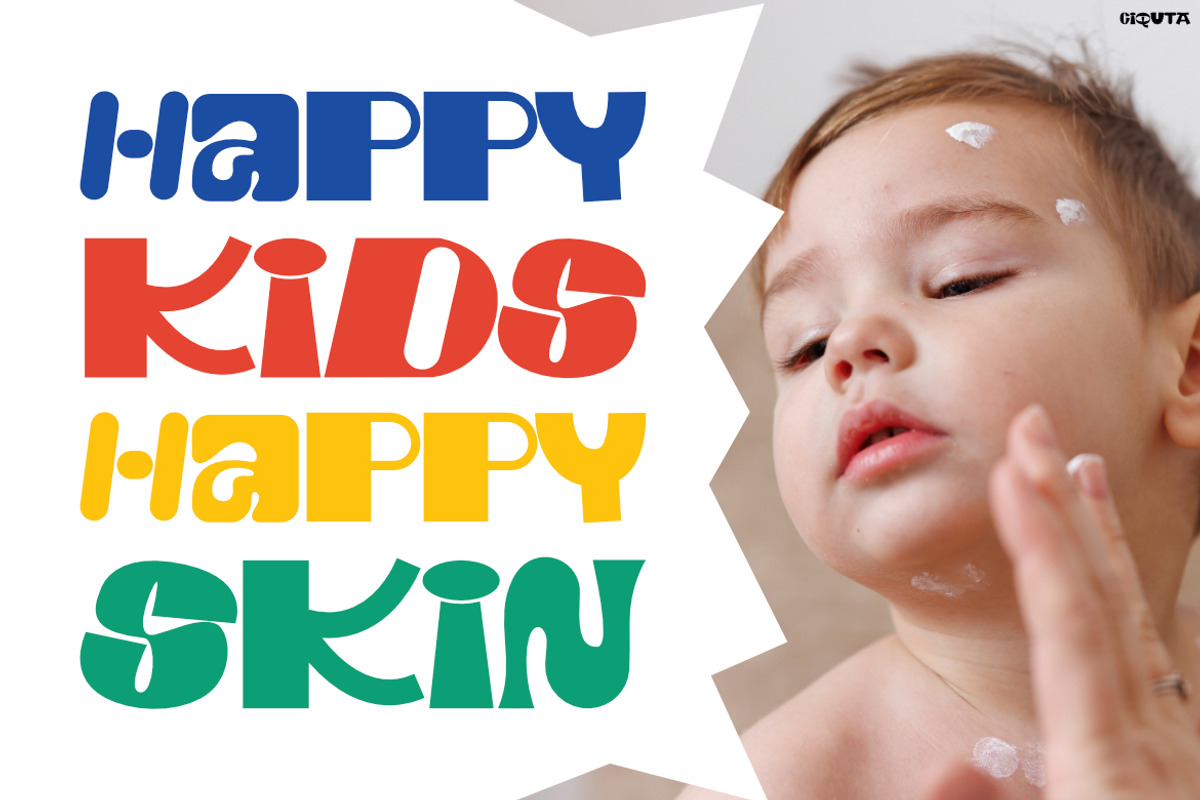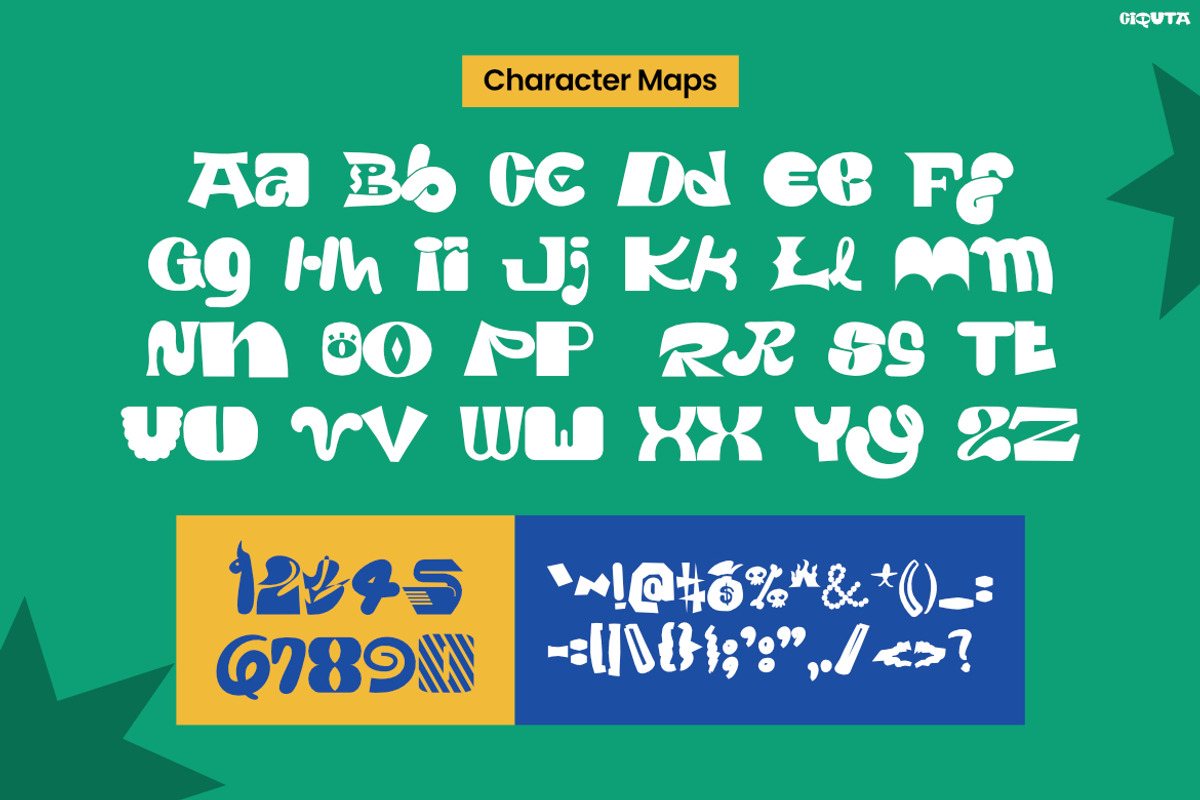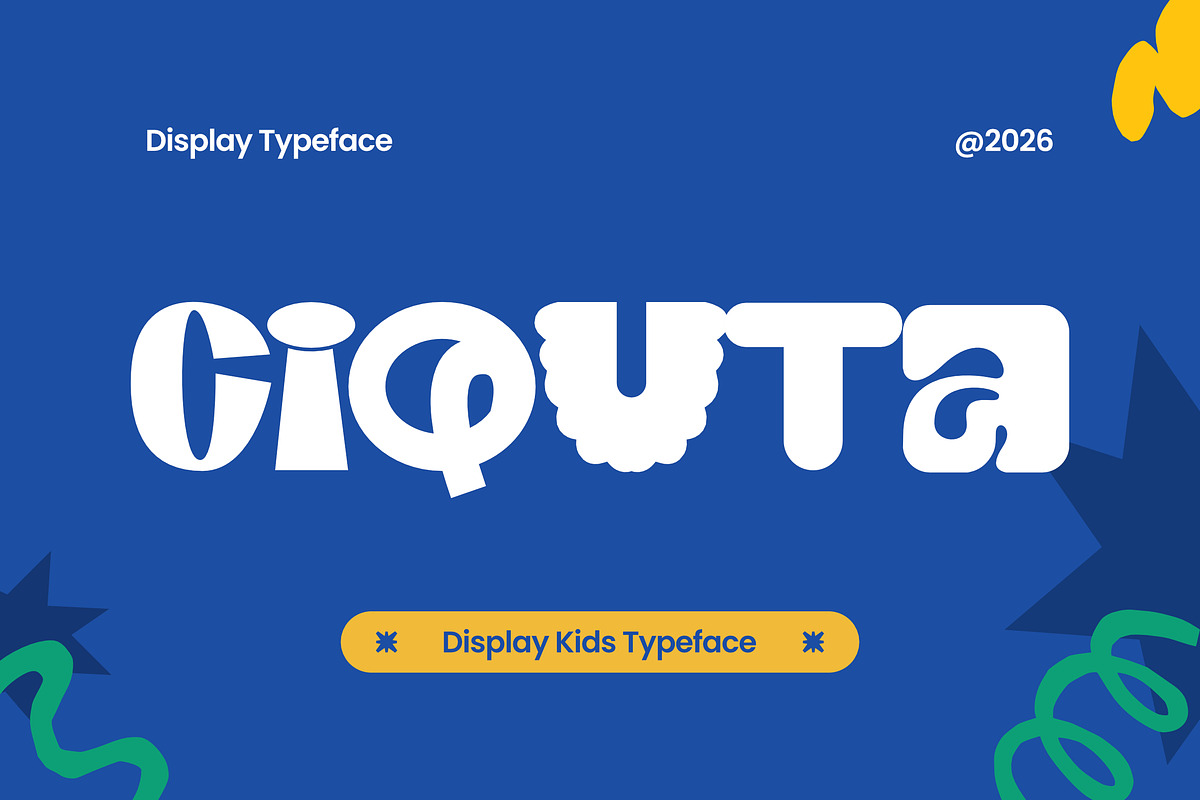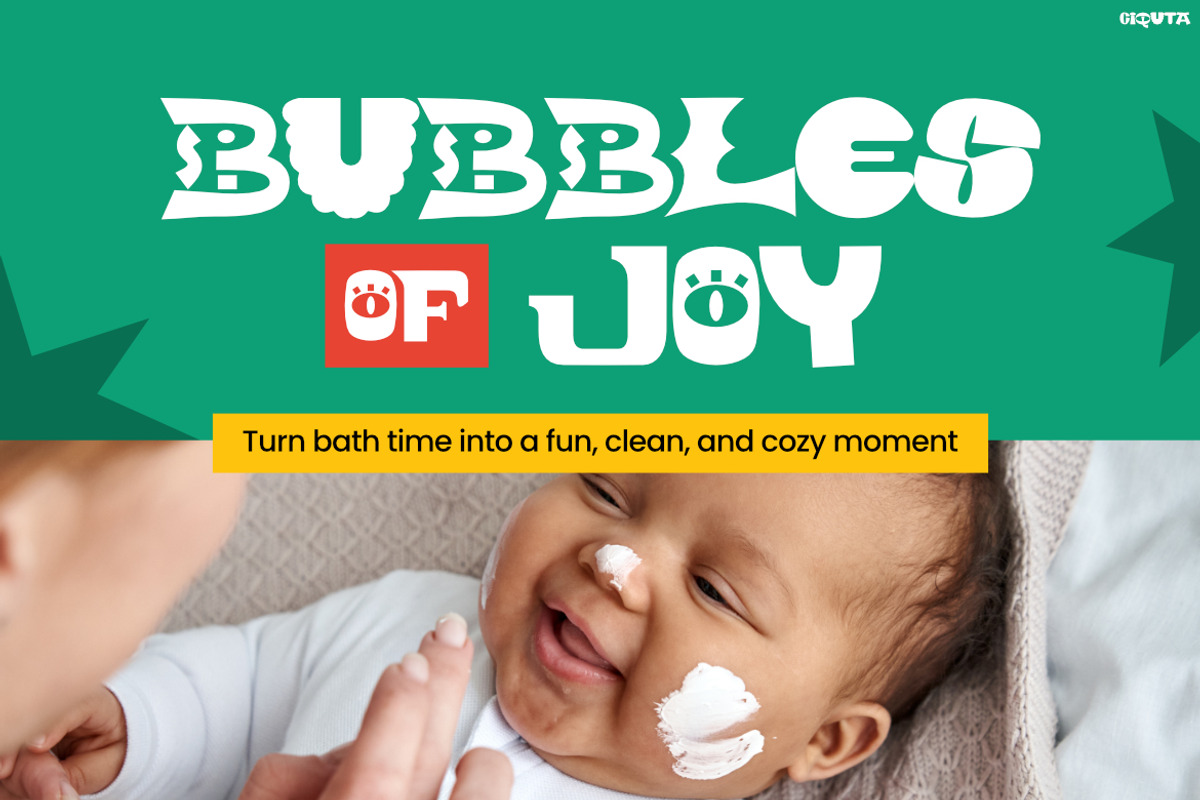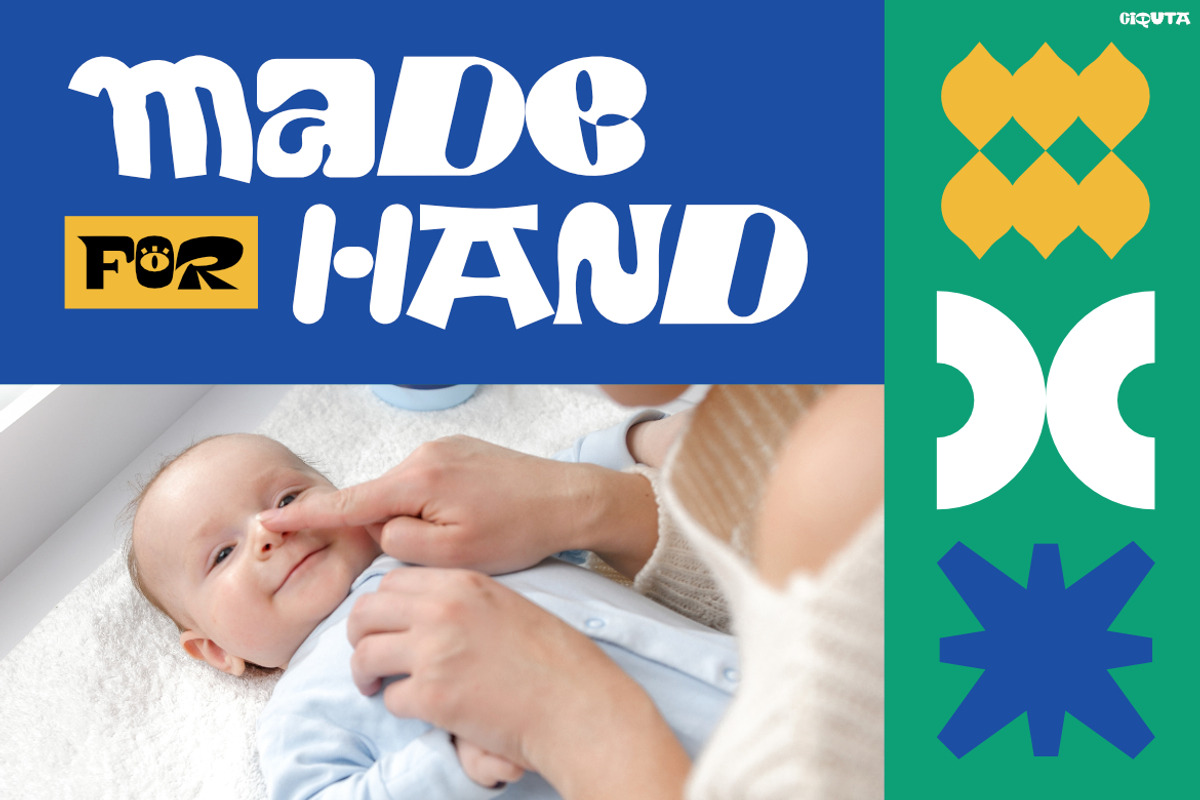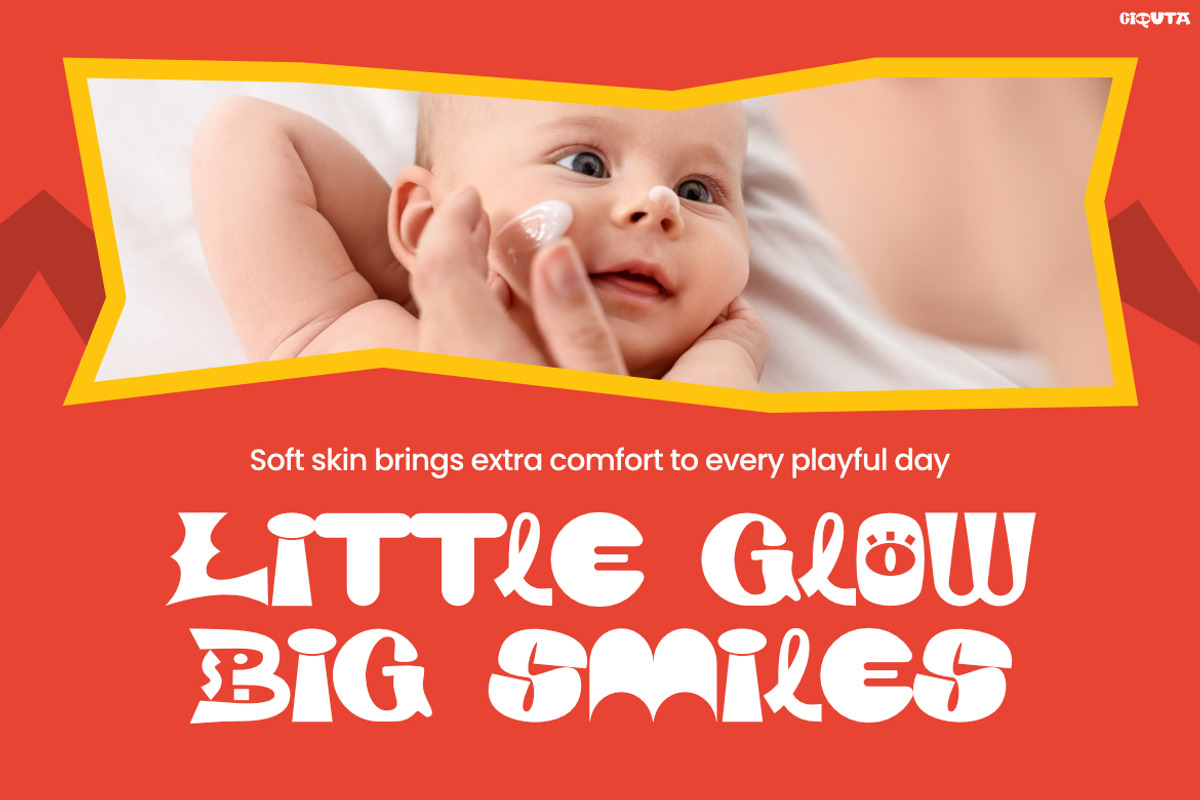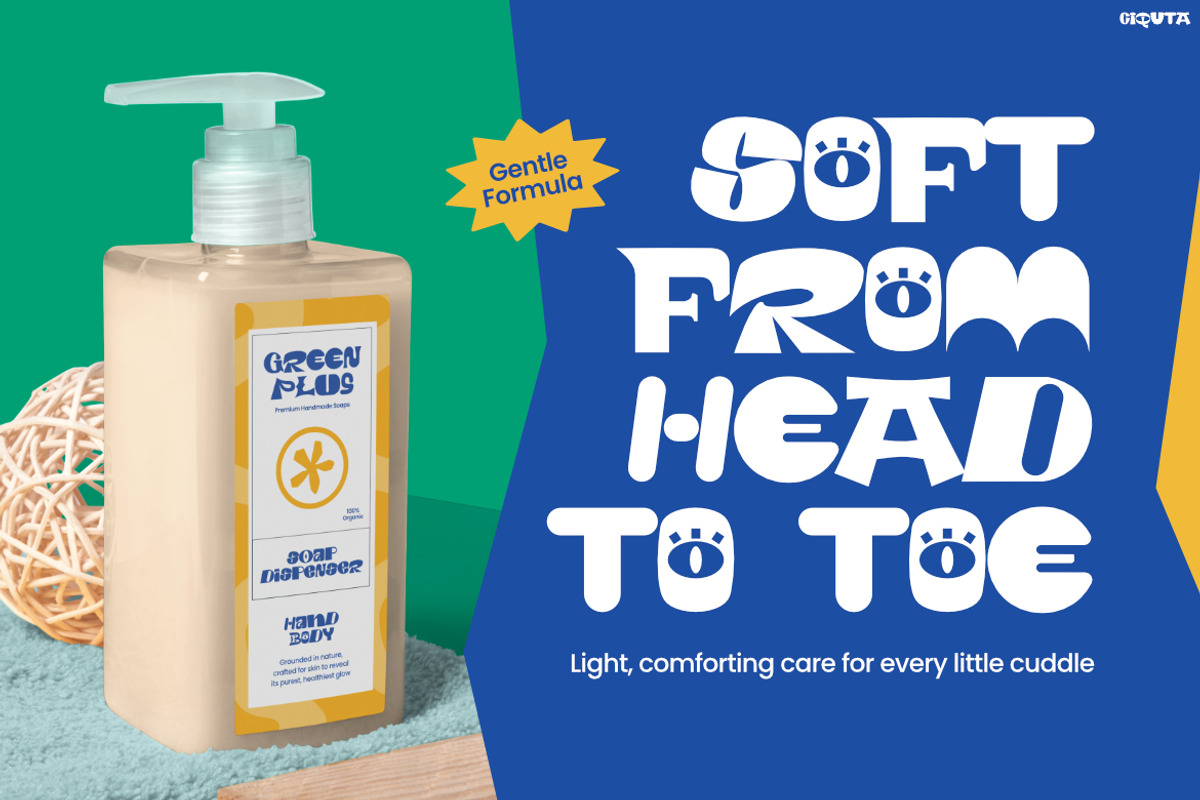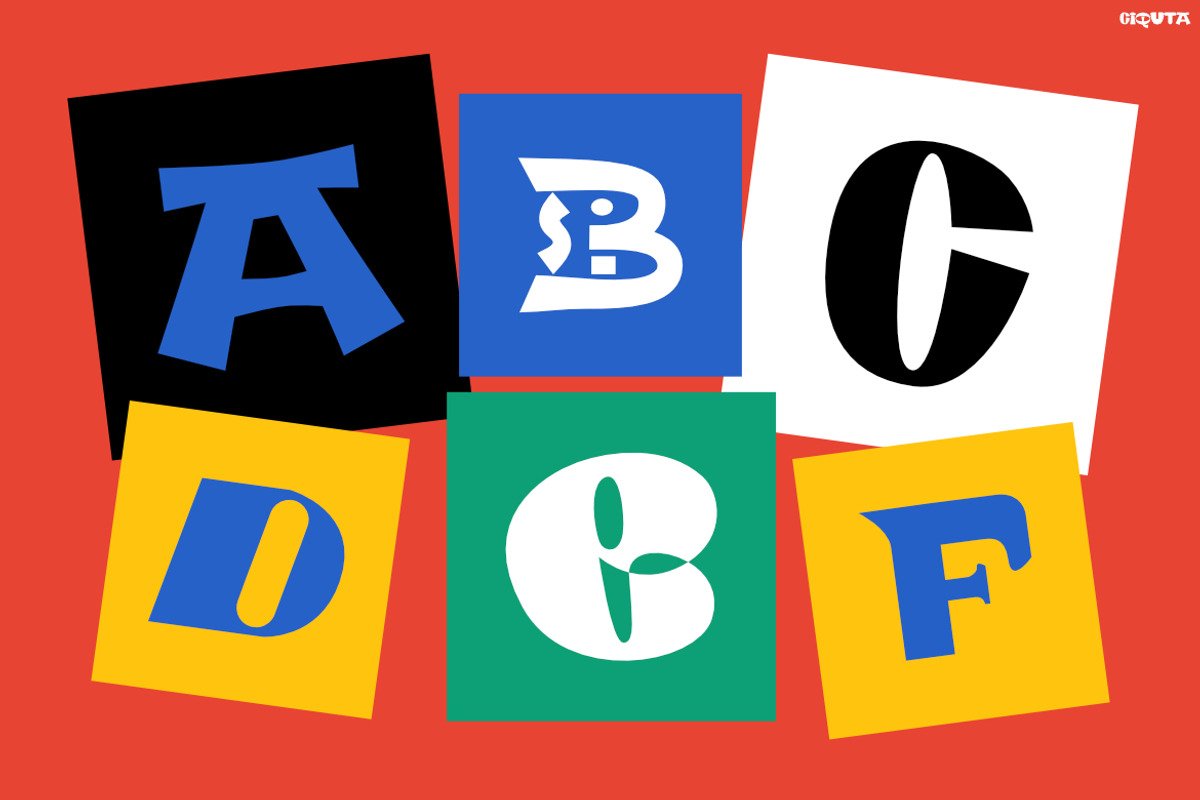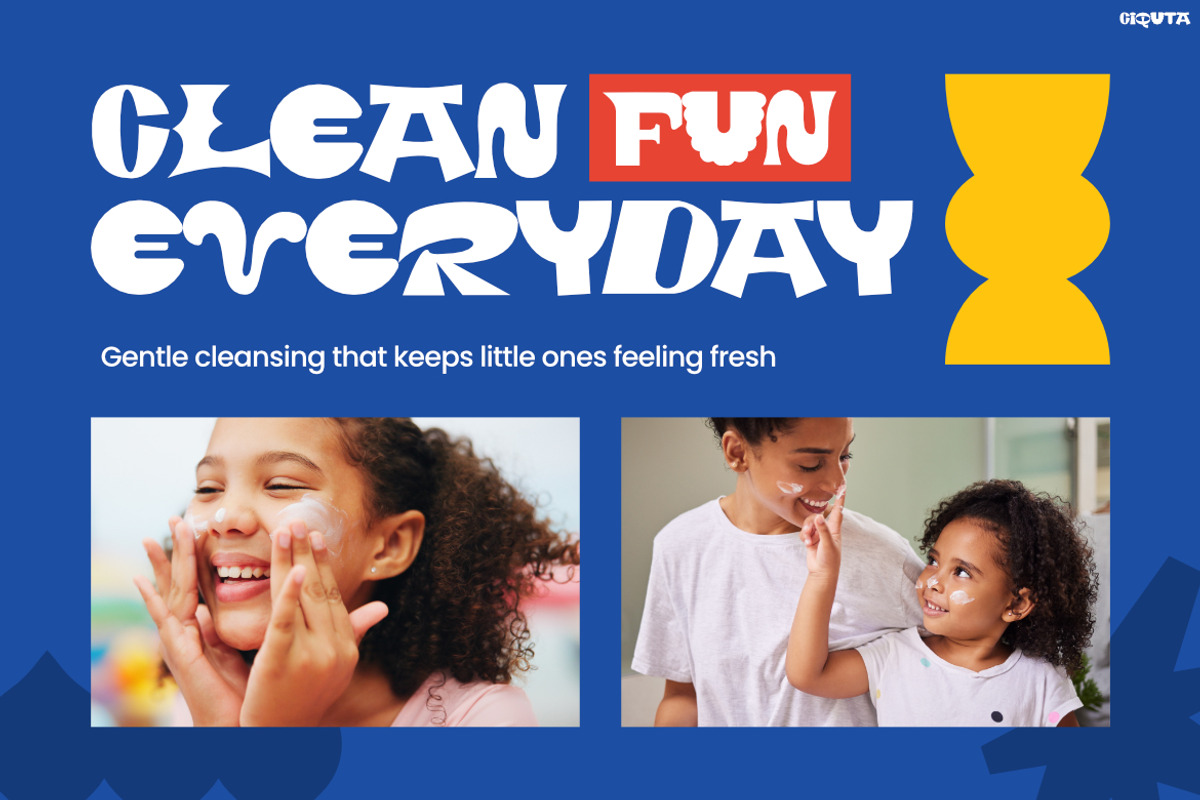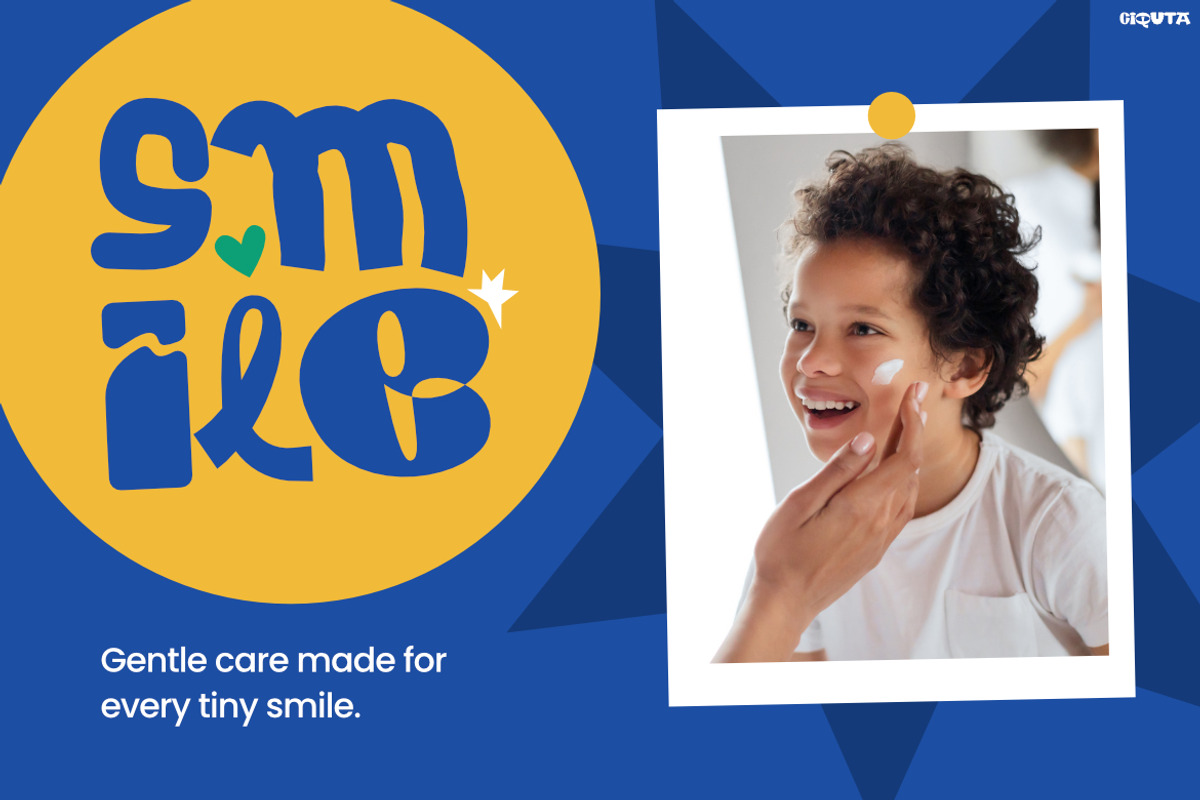
CIQUTA
Kids Font CIQUTA – Bright Letters. Happy Little Adventures.
Kids Font CIQUTA fills every design with cheerful energy through its playful curves, chunky letterforms, and handcrafted personality. Unlike ordinary kids fonts, CIQUTA combines soft rounded shapes with bold proportions to create typography that feels lively, friendly, and full of imagination. Moreover, every character adds warmth and charm, while the playful rhythm keeps every headline engaging and easy to read. As a result, your projects instantly become more inviting and memorable. In addition, the balanced design works beautifully across print and digital media, so your creativity shines in every format. Whether you’re designing for fun or education, CIQUTA helps every message feel joyful from the very first letter.